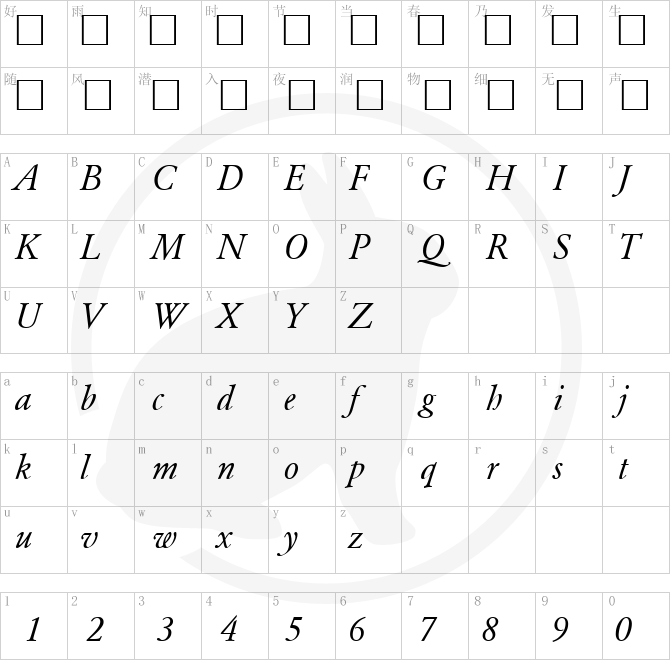
- Font Name:QTGaromand
QTGaromand-Italic.ttf is a very beautiful artistic font, QTGaromand-Italic.ttf is widely used in the design and printing of various books and pictures,QTGaromand-Italic.ttf has a strong visual impact,QTGaromand-Italic.ttf is a commonly used font in newspapers, magazines and books, and is used in posters, e-commerce Poster design, store design, logo design, font design and other fields.QTGaromand-Italic.